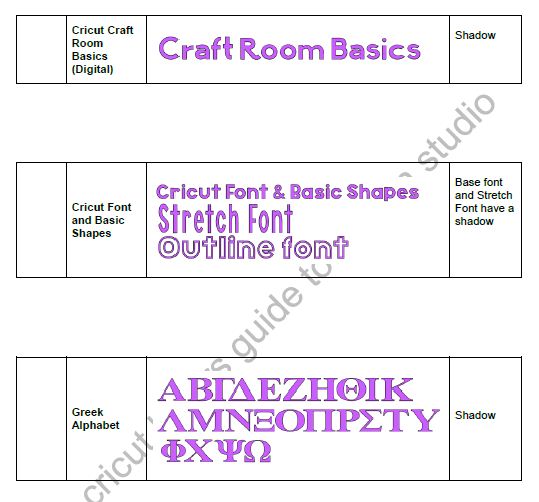
Free Cricut Font And Basic Shapes Free Typography Fonts
All Free PSD Mockups - Download Free SVG Cut FilesAug 26 2012 the cricut font and basic shapes is a power packed cartridge. This one has all your basic crafting and scrapbooking needs all in a single cartridge. George and basic shapes.
cricut font and basic shapes
Also included are 10 words and sayings.
Cricut font and basic shapes. The cricut font and basic shapes is a power packed cartridge. Youll love trying them out for your party deacutecor scrapbook layouts and other creative projects. Dont let the name fool you. The designs on the pumpkin carving seasonal digital cartridge can be used for so much more than jack o lanterns.
The cricut font and basic shapes is a power packed cartridge. This cartridge is digital only. Find many great new used options and get the best deals for cricut george and basic shapes font cartridge at the best online prices at ebay. This one has all your basic crafting and scrapbooking needs all in a single cartridge.
Includes three fonts and two sets of shapes. This one has all your basic crafting and scrapbooking needs all in a single cartridge. These basic uppercase letters and shapes make the george cartridge a must have. To create one of a kind pages.
This halloween themed digital cartridge is filled with images of monsters owls gravestones and more. The creatiue feature keys included on cricut font and shapes cartrid are shadow stretch font shadow outline font funky shapes and geometric shapey use a crgatie feature key just pressing the cdt button the on screen tten be cut in of creattue featurx to their sizes and shages a feature may not uith all shapes. So many uses for this versatile cartridge. George and basic shapes cricut cartridge using the george and basic shapes cartridge you can make your letters into signs charms silhouettes to create one of a kind pages.
Also included are 10 words and sayings. So many uses for this versatile cartridge. See more ideas about basic shapes cricut cricut cards. Includes three fonts and two sets of shapes.
You can make your letters into signs charms silhouettes etc. George and basic shapes handbook. Jan 4 2015 explore sharons board cricut george and basic shapes ideas followed by 136 people on pinterest. Includes three fonts and two sets of shapes.